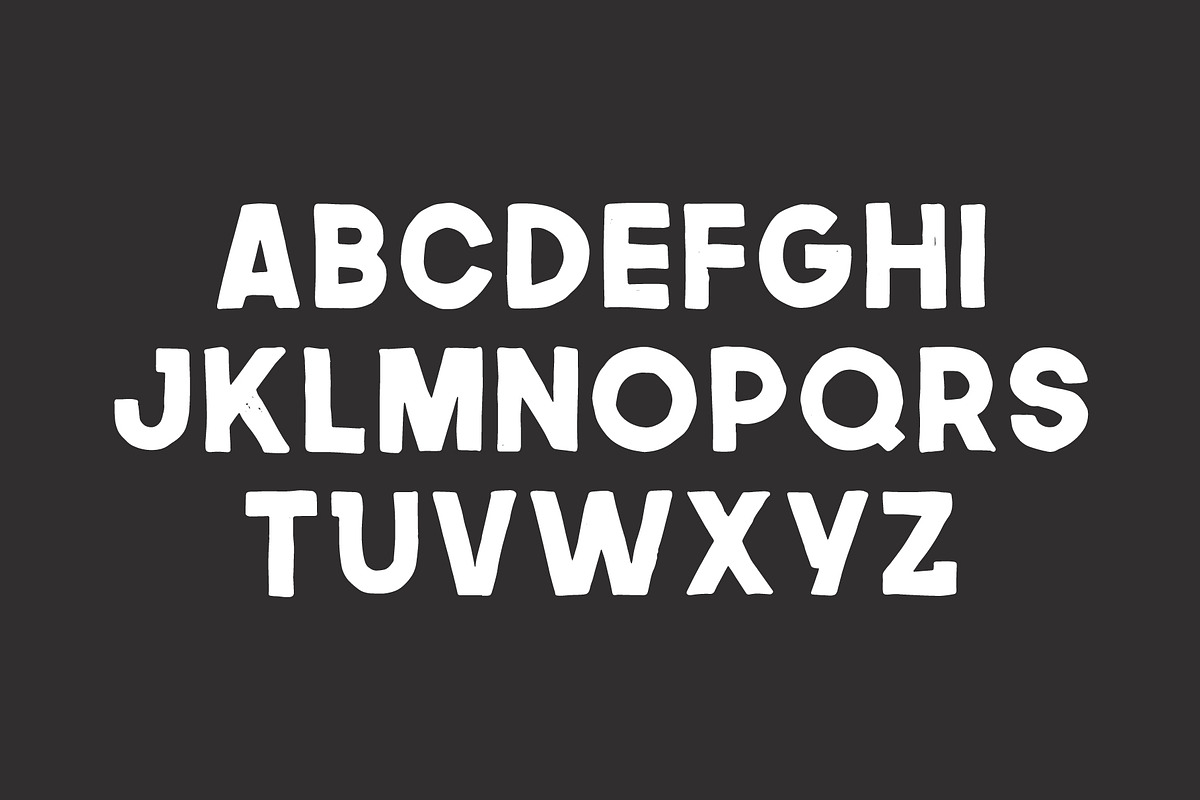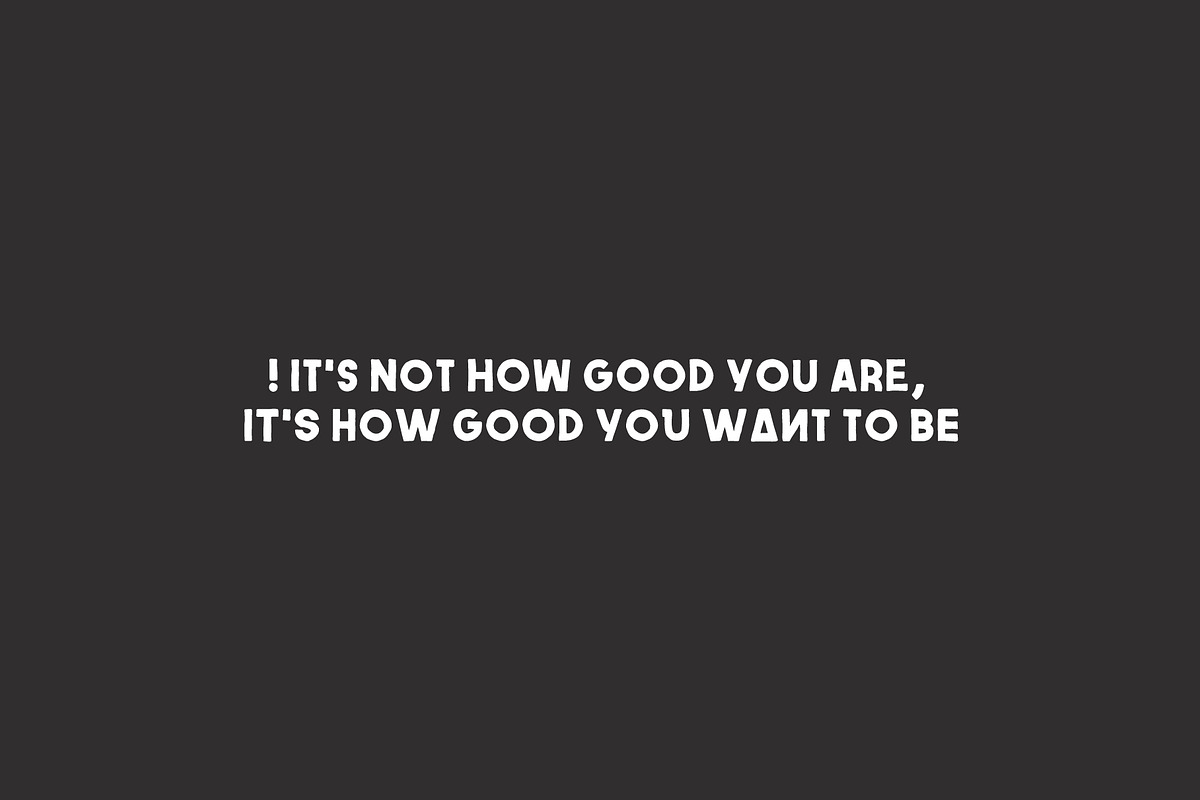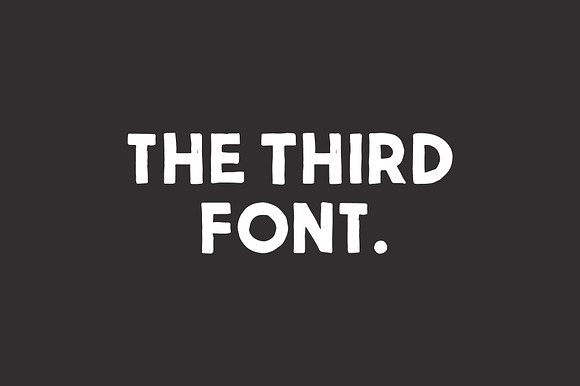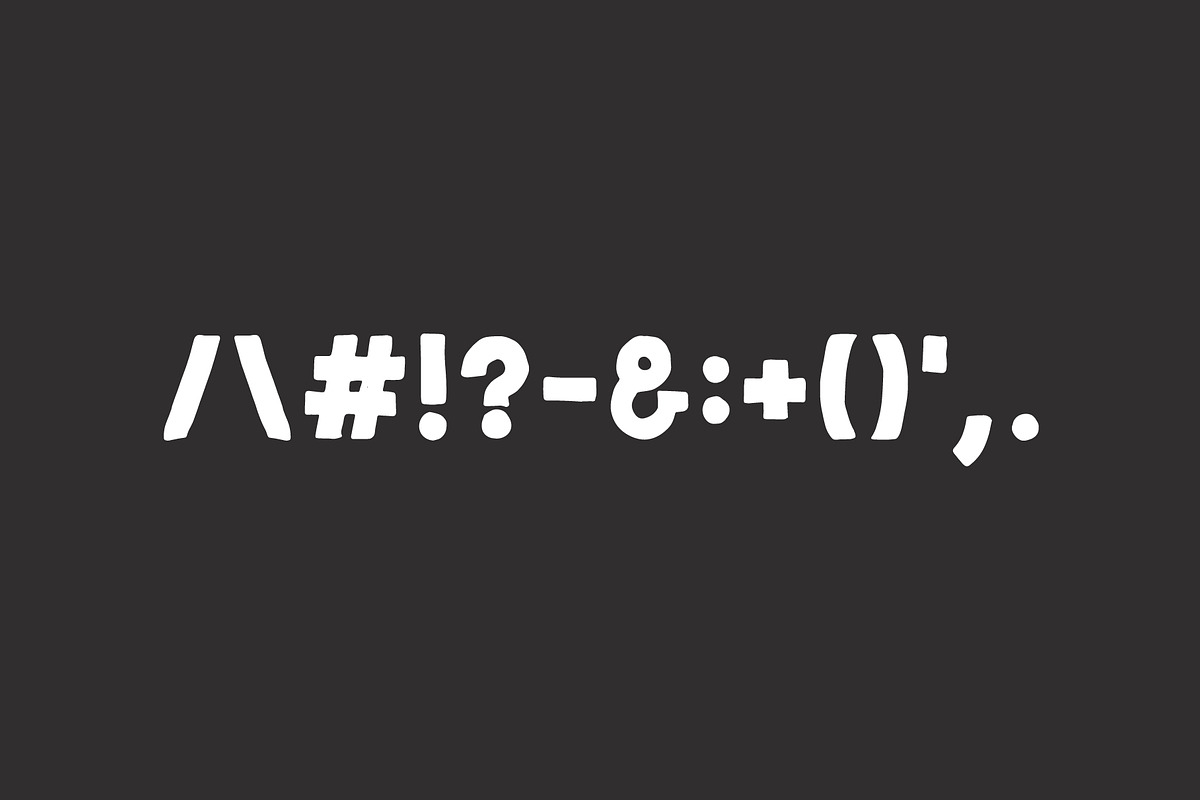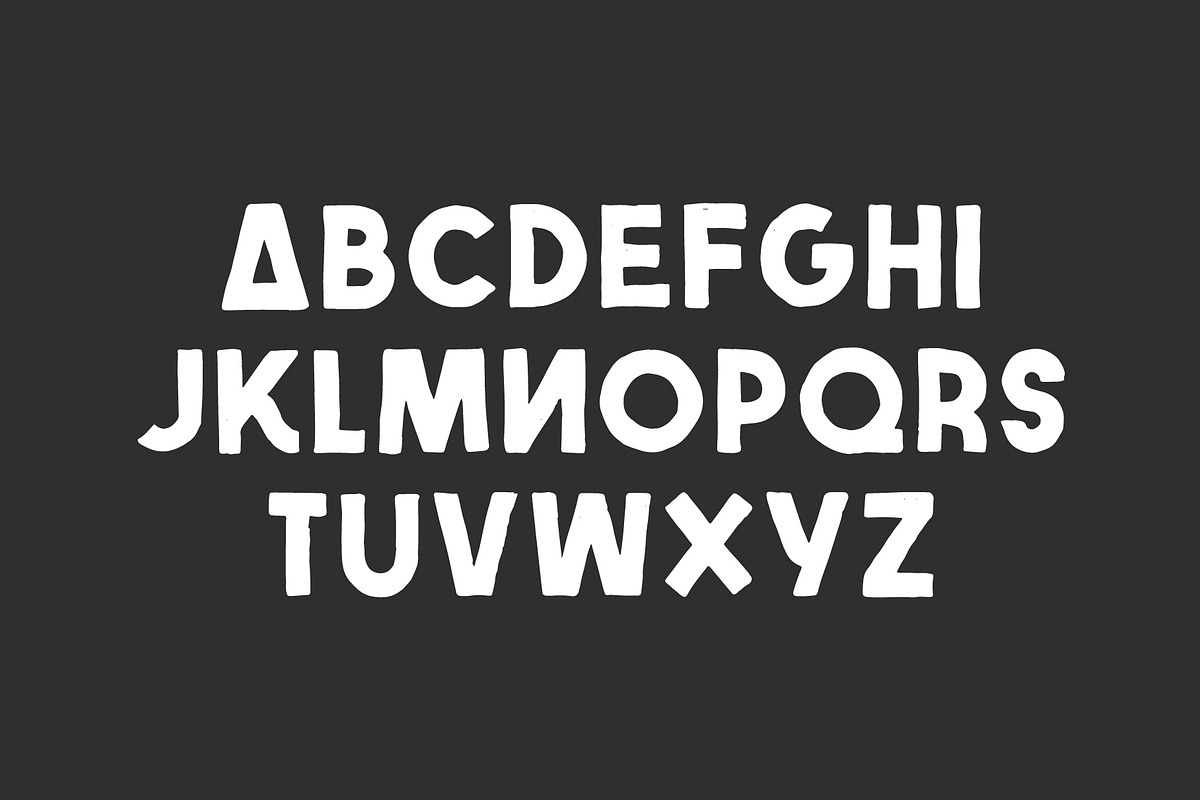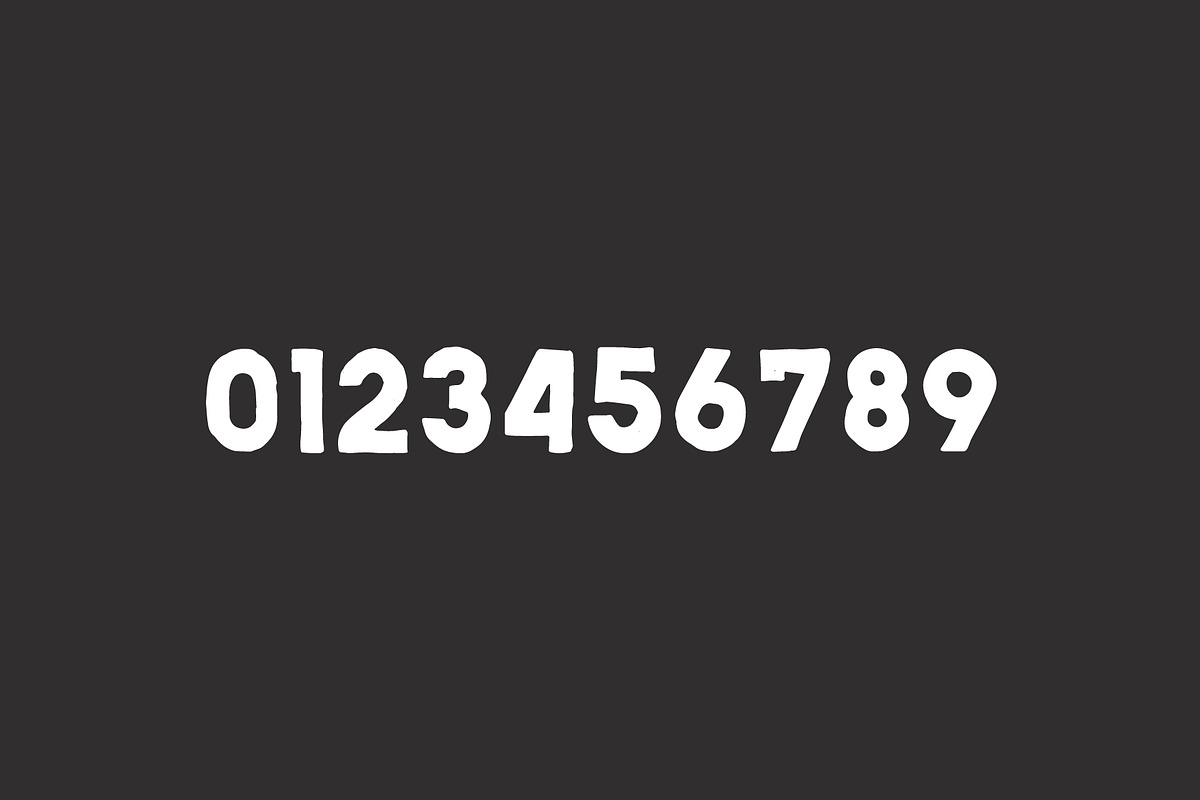
The Third Font
a fun font by sven pels
Why The Third Font is worth a look
The Third Font by Sven Pels fits naturally into Branding, posters, packaging, typography.